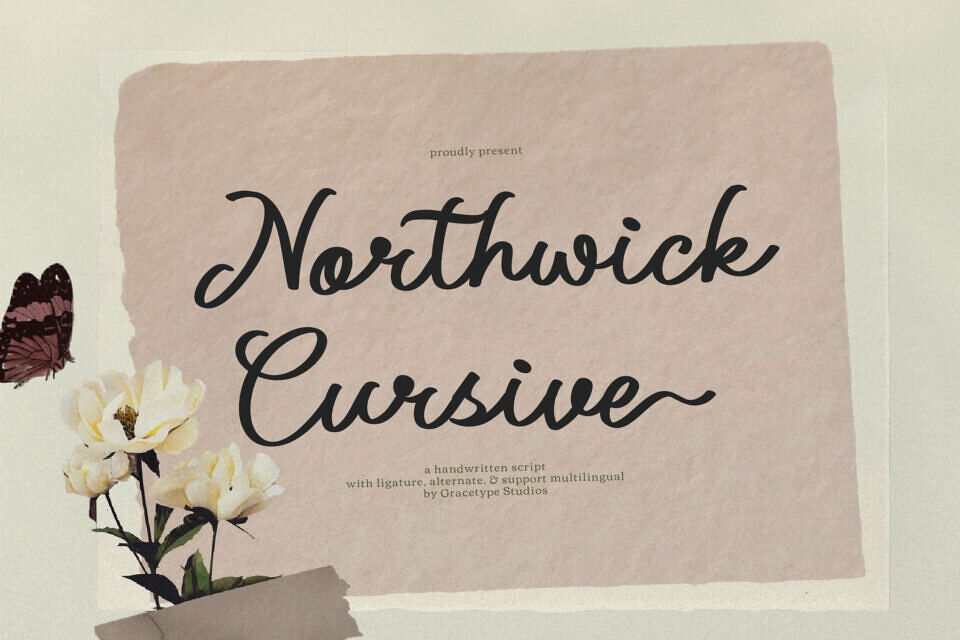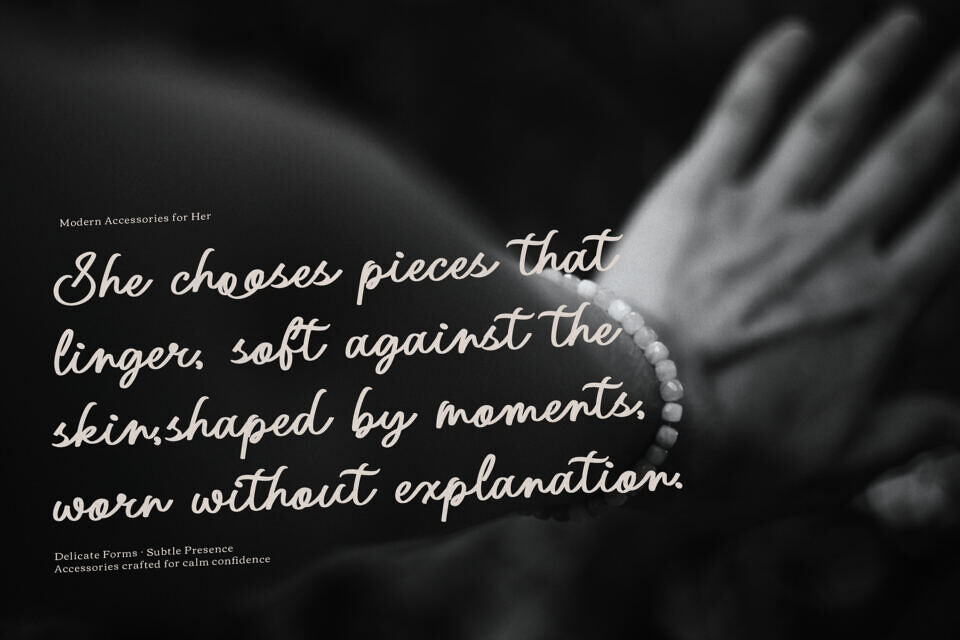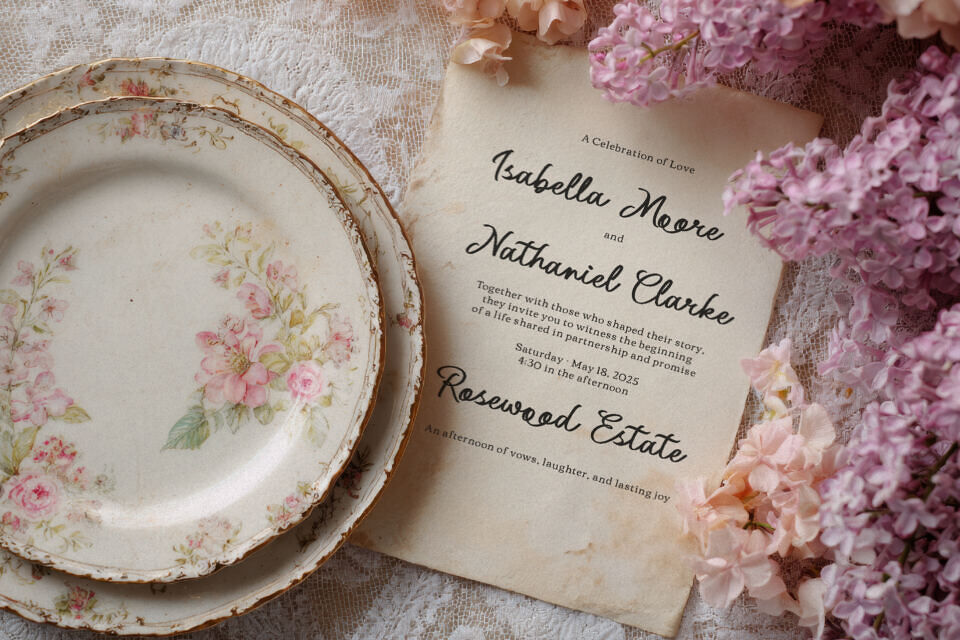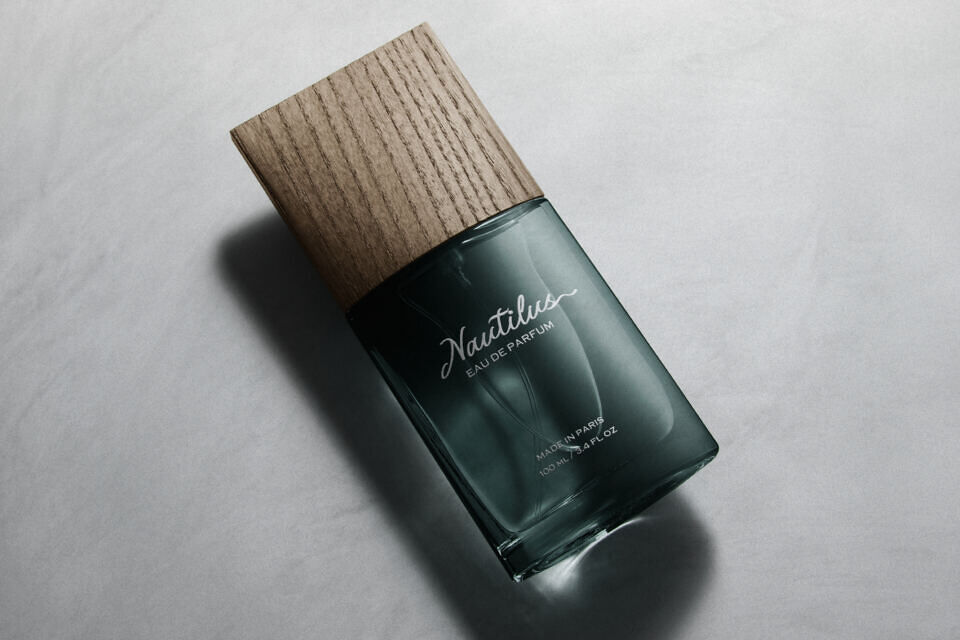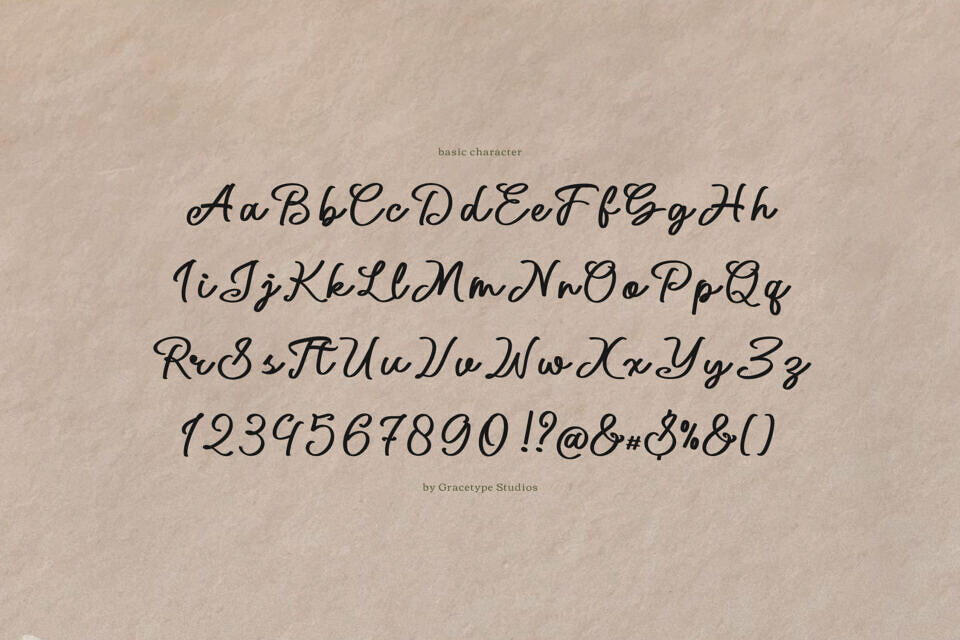
Northwick Cursive Font
Northwick Cursive is a graceful and fluid handwritten script that embodies timeless charm and sophisticated femininity. This typeface is defined by its elegant, sweeping curves and a natural, rhythmic flow that mimics high-quality penmanship.
It features a rich collection of ligatures and alternates, including beautiful decorative swashes at the beginning and end of characters, giving it a truly custom, artisanal feel. Northwick Cursive is the perfect choice for delicate branding, wedding invitations, high-end product packaging, and romantic editorial layouts that require a touch of modern classic elegance.